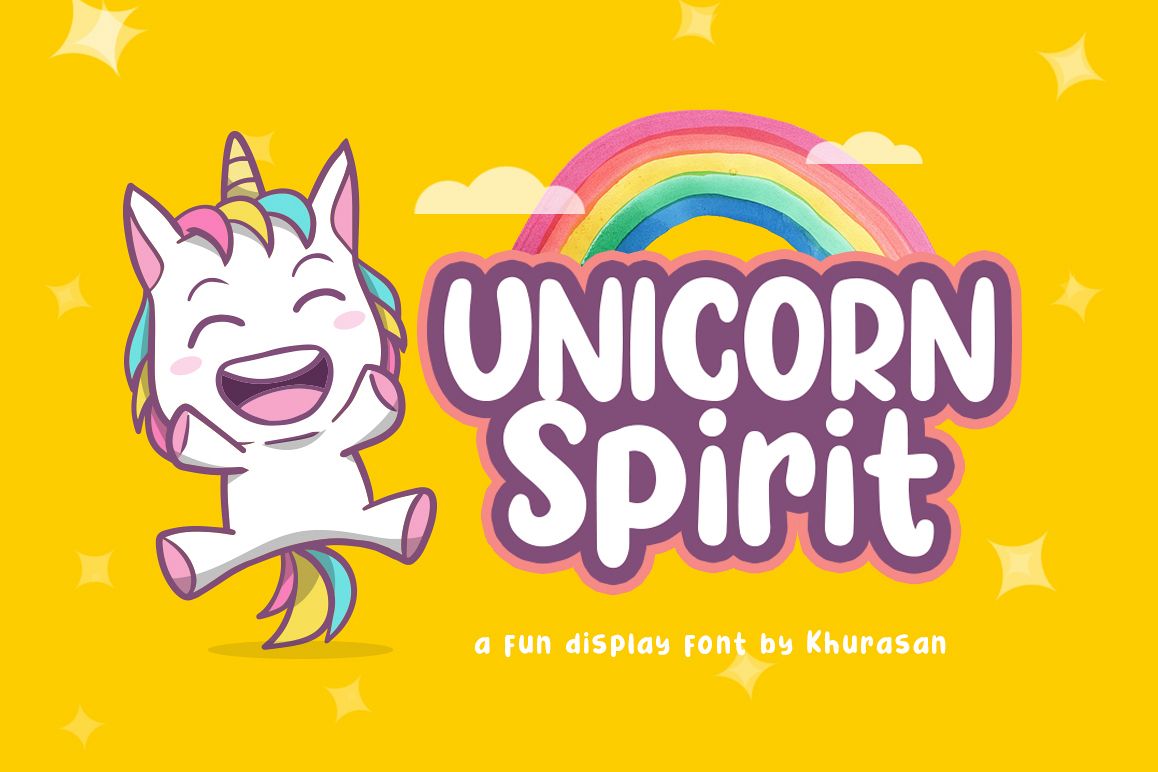
Introducing, Unicorn Spirit font a fun display typeface with cheerful theme for your fun project. Unicorn Spirit font suitable for logo, branding, greeting card, poster and any design that you create.